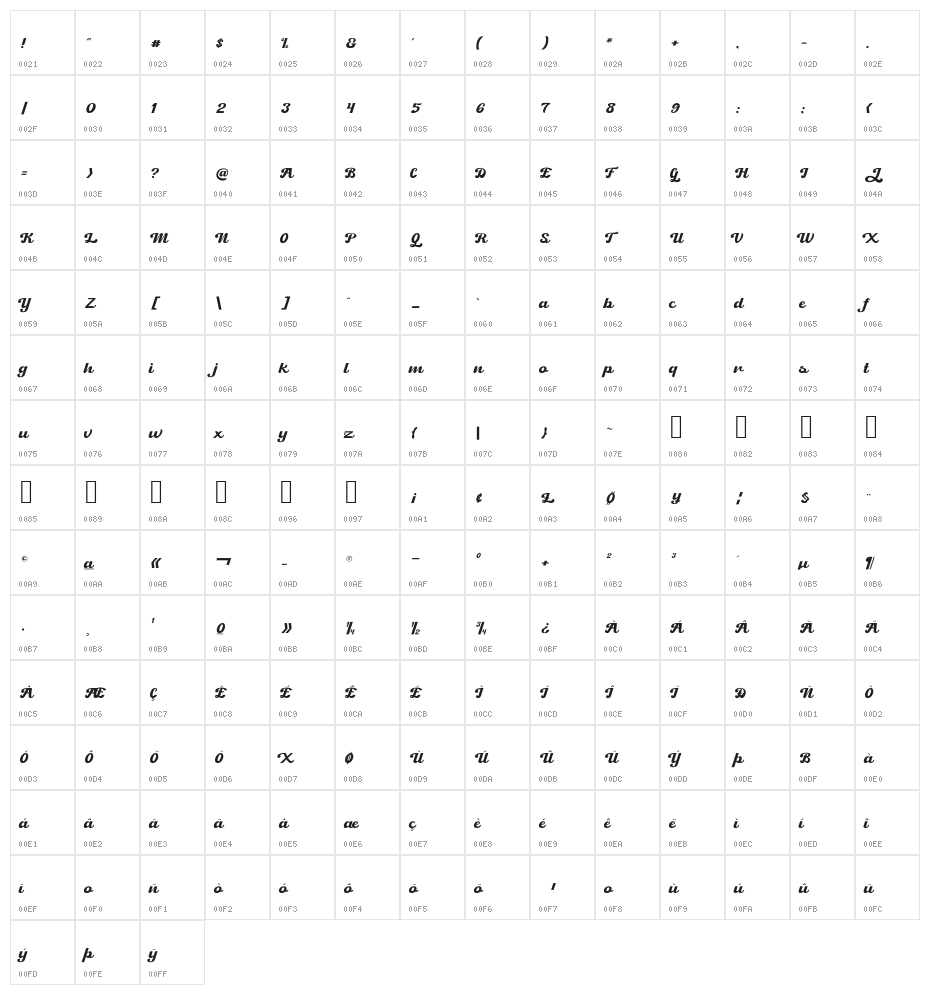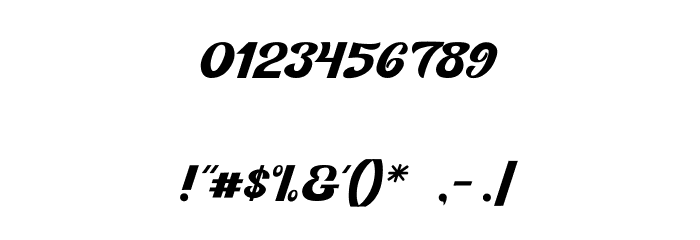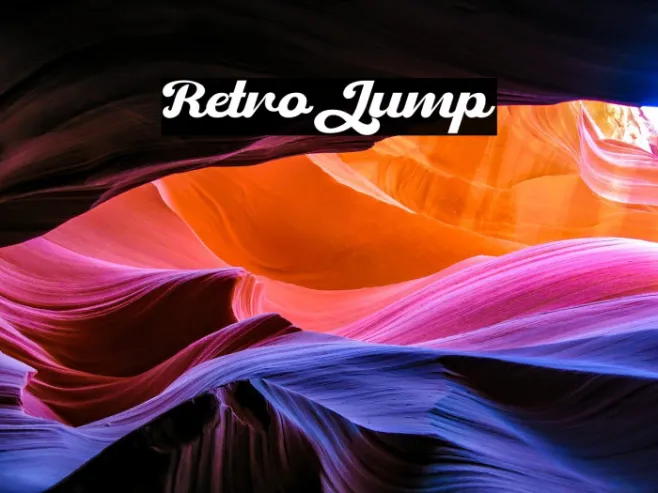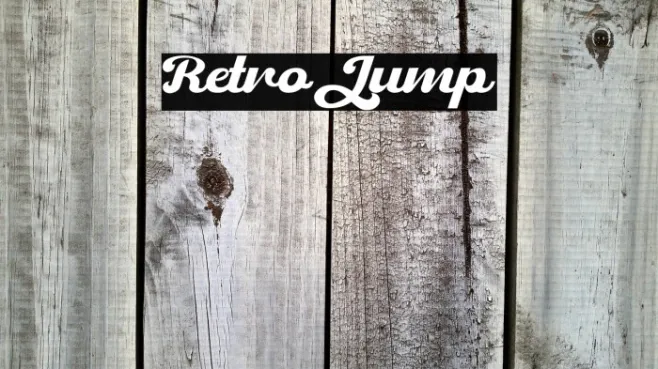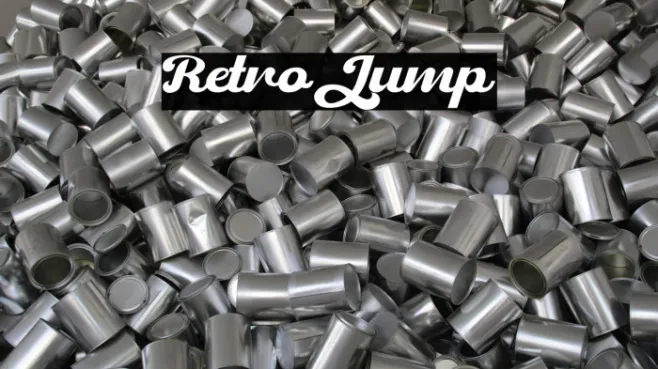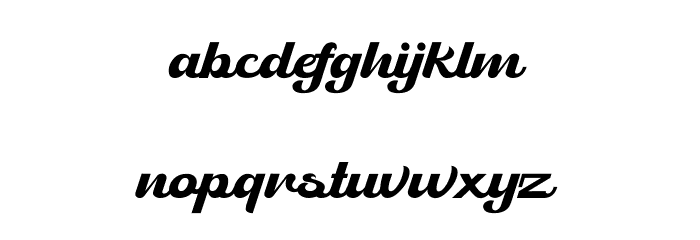
RetroJump Font
RetroJump Description
This font features a bold and dynamic script style with a retro flair. The characters are designed with a flowing, cursive appearance, giving it a sense of movement and elegance. The uppercase letters are particularly striking, with exaggerated loops and swirls that add a decorative touch. The lowercase letters maintain a cohesive look, complementing the uppercase with their smooth curves. Numbers and special characters are crafted to match the overall aesthetic, ensuring consistency across all elements. The font's bold weight and high contrast between thick and thin strokes make it highly legible while retaining its artistic charm.
| Overall Style | Retro |
| Proposed Projects | Ideal for vintage-themed posters, retro branding, event invitations, and logo design. |